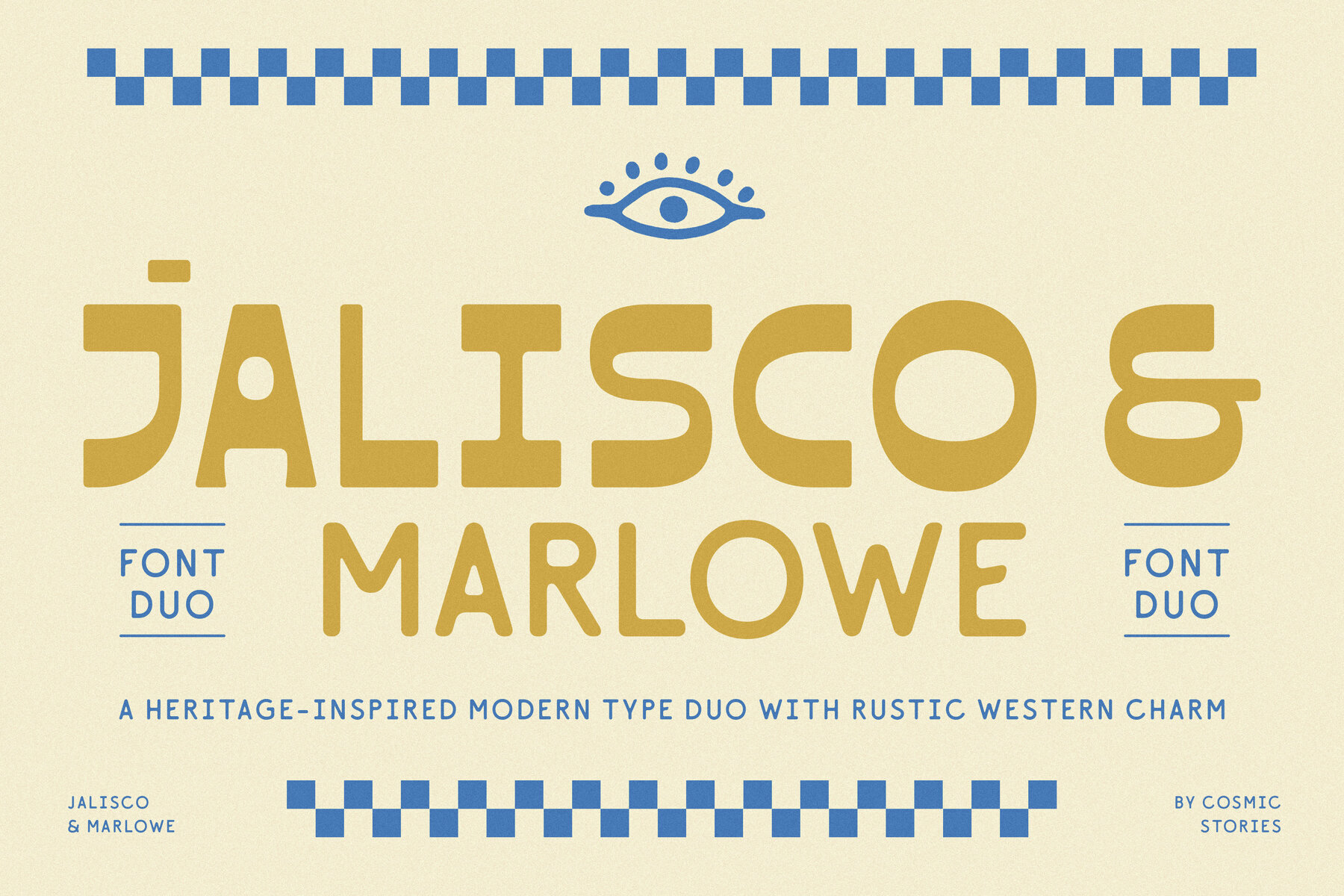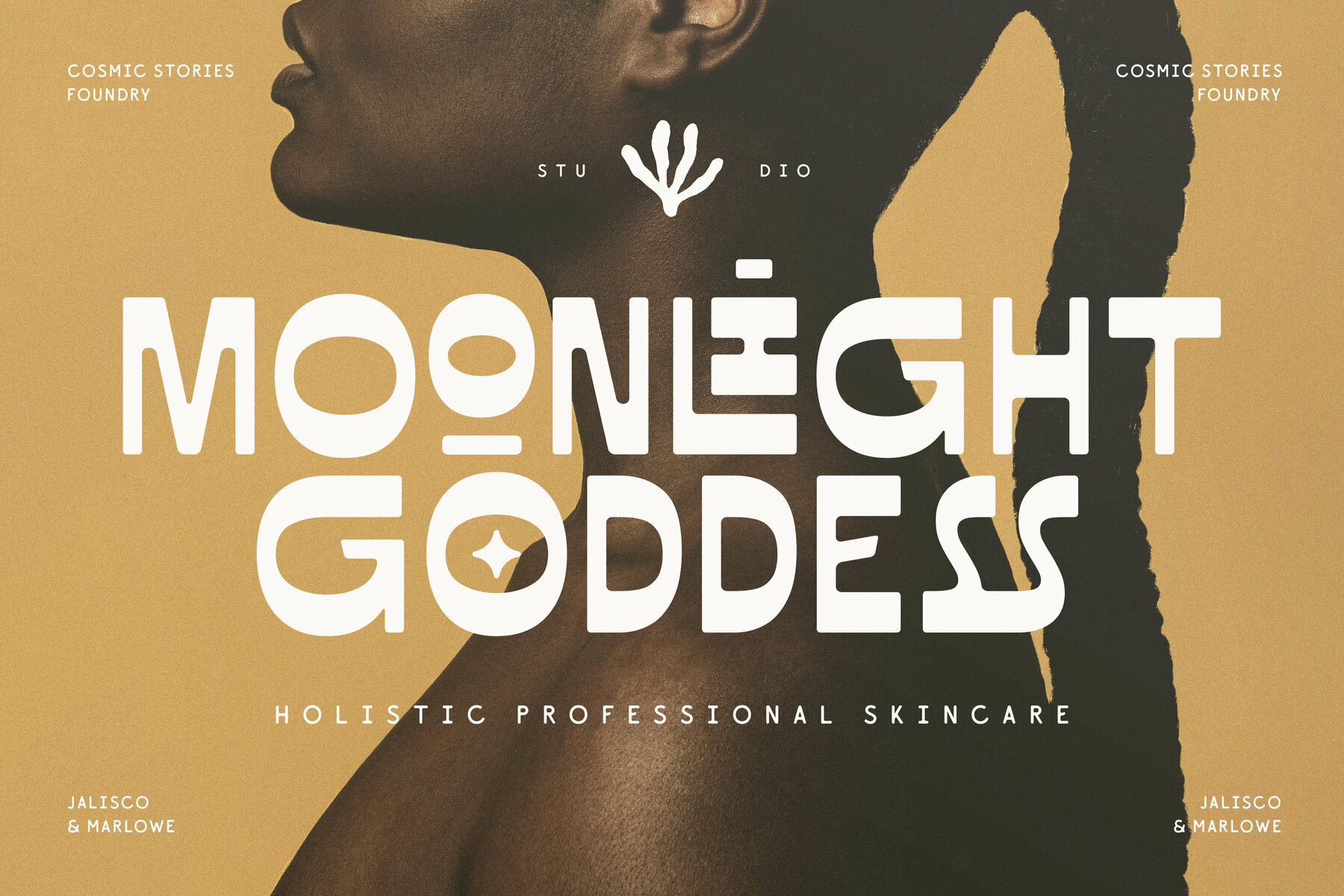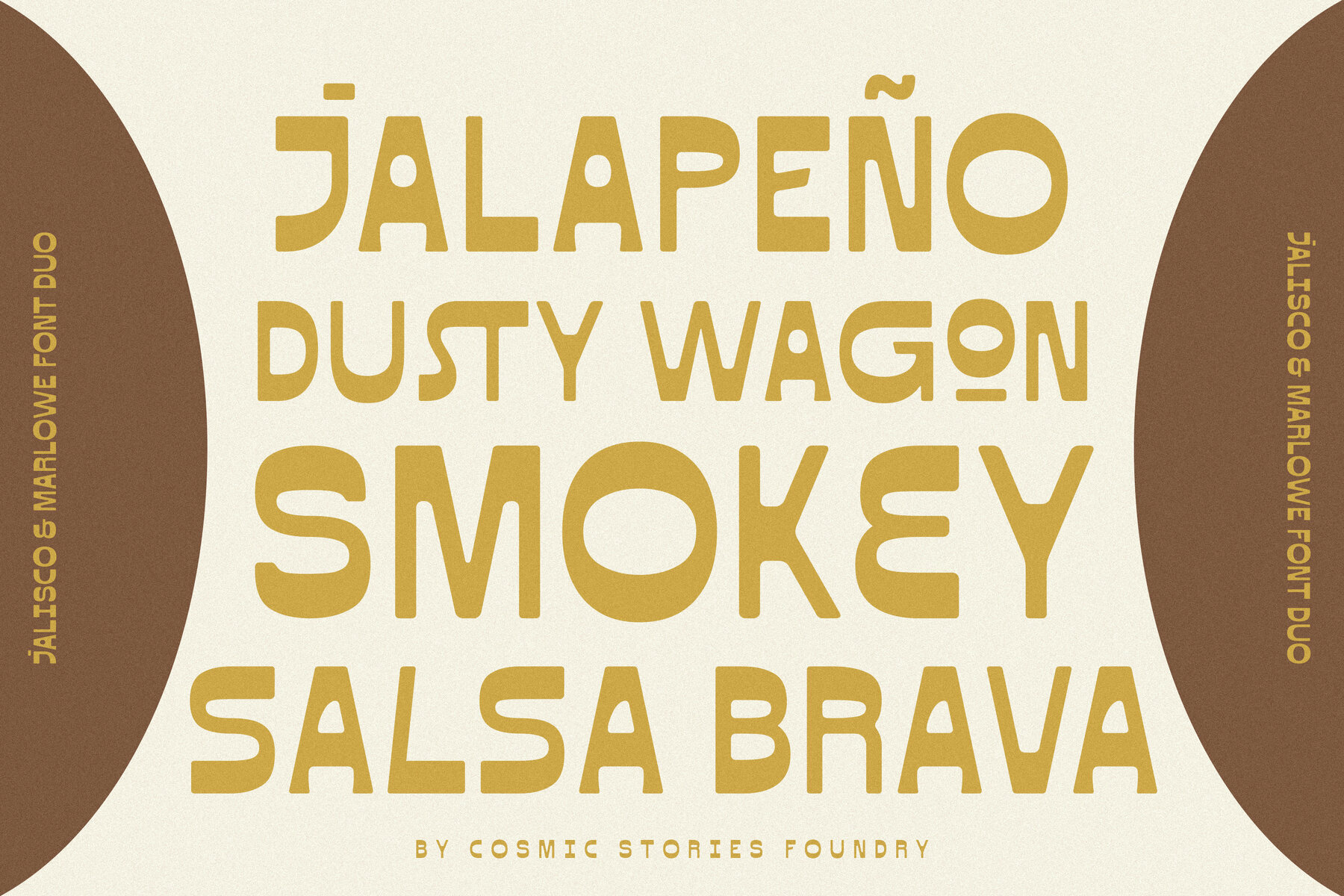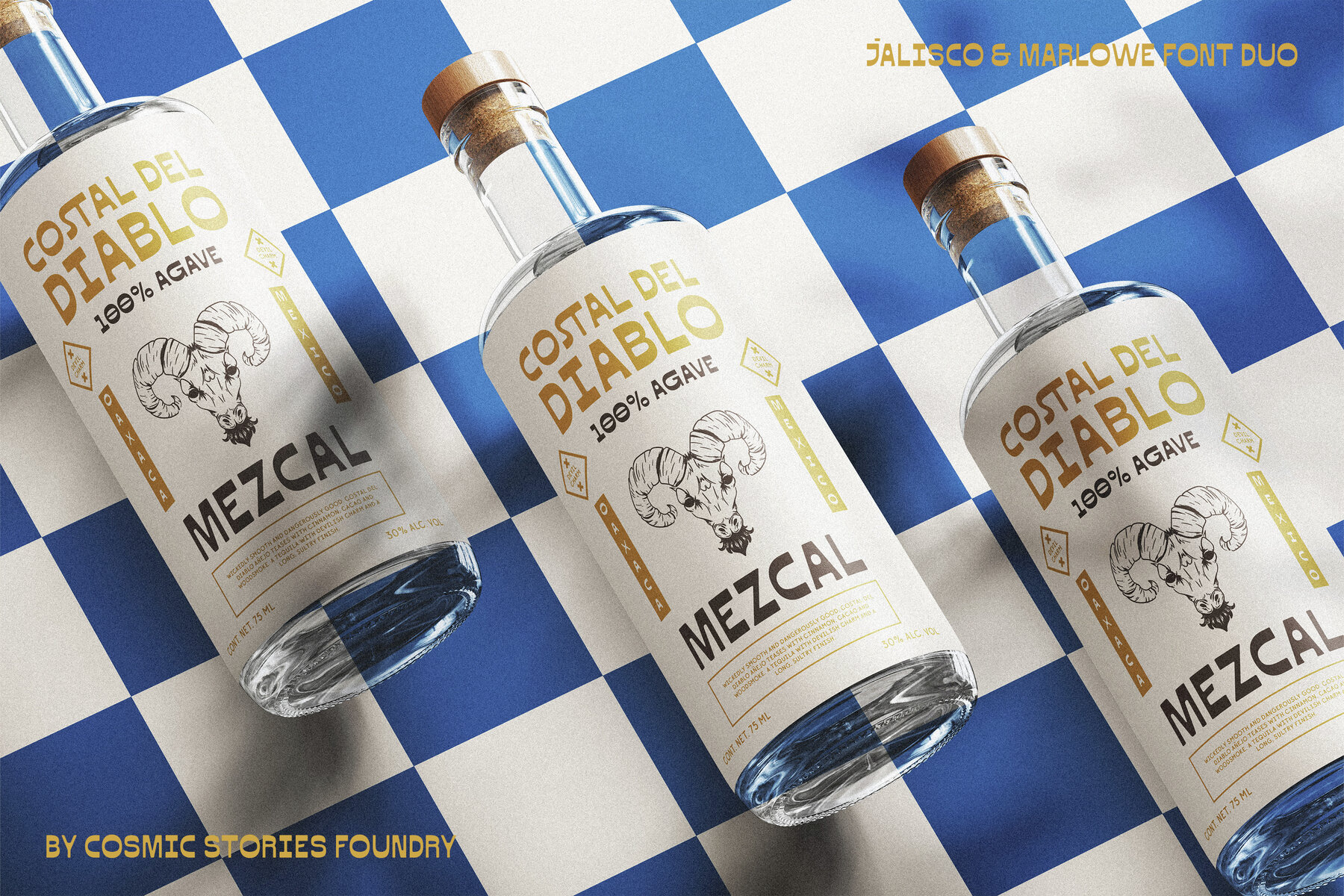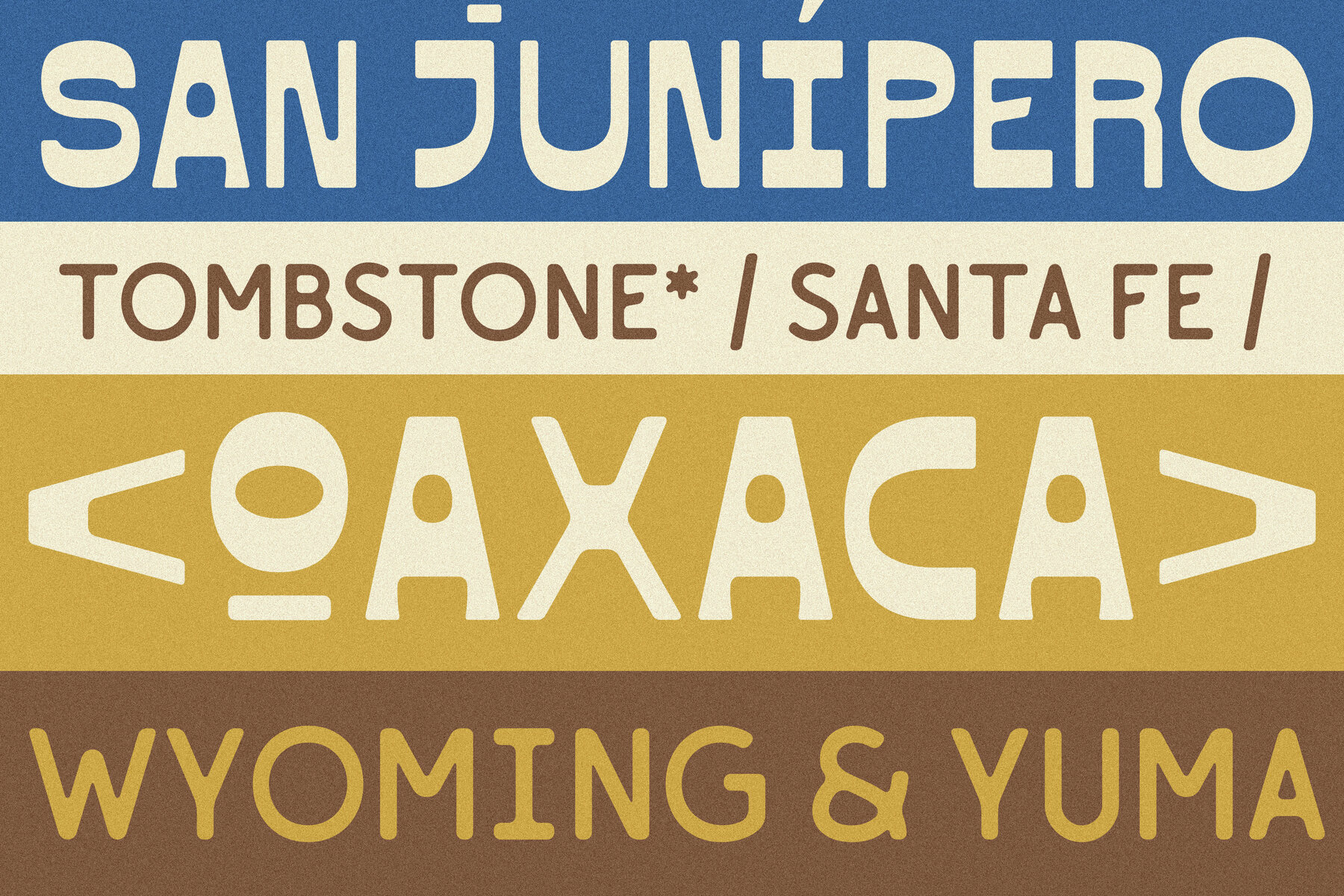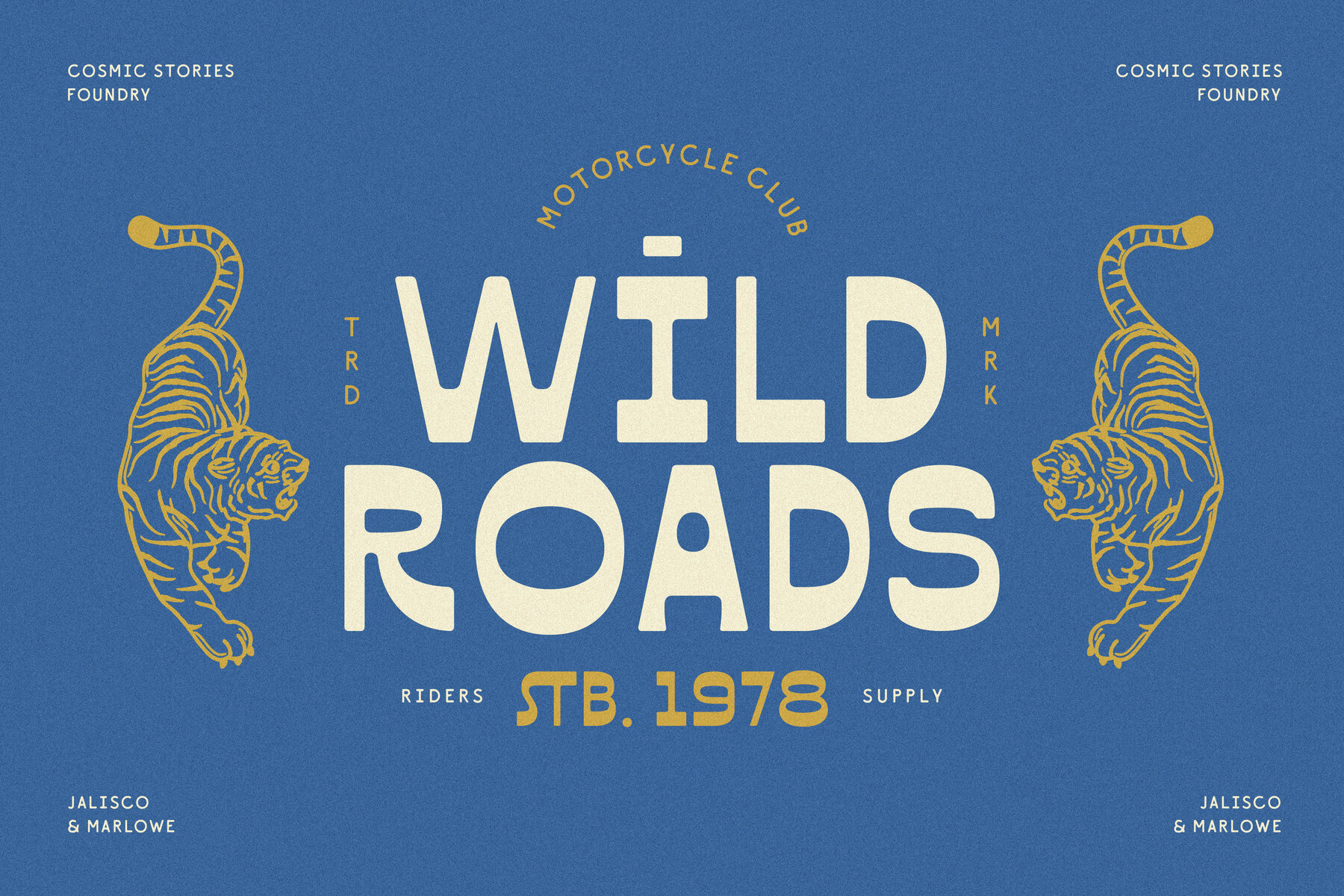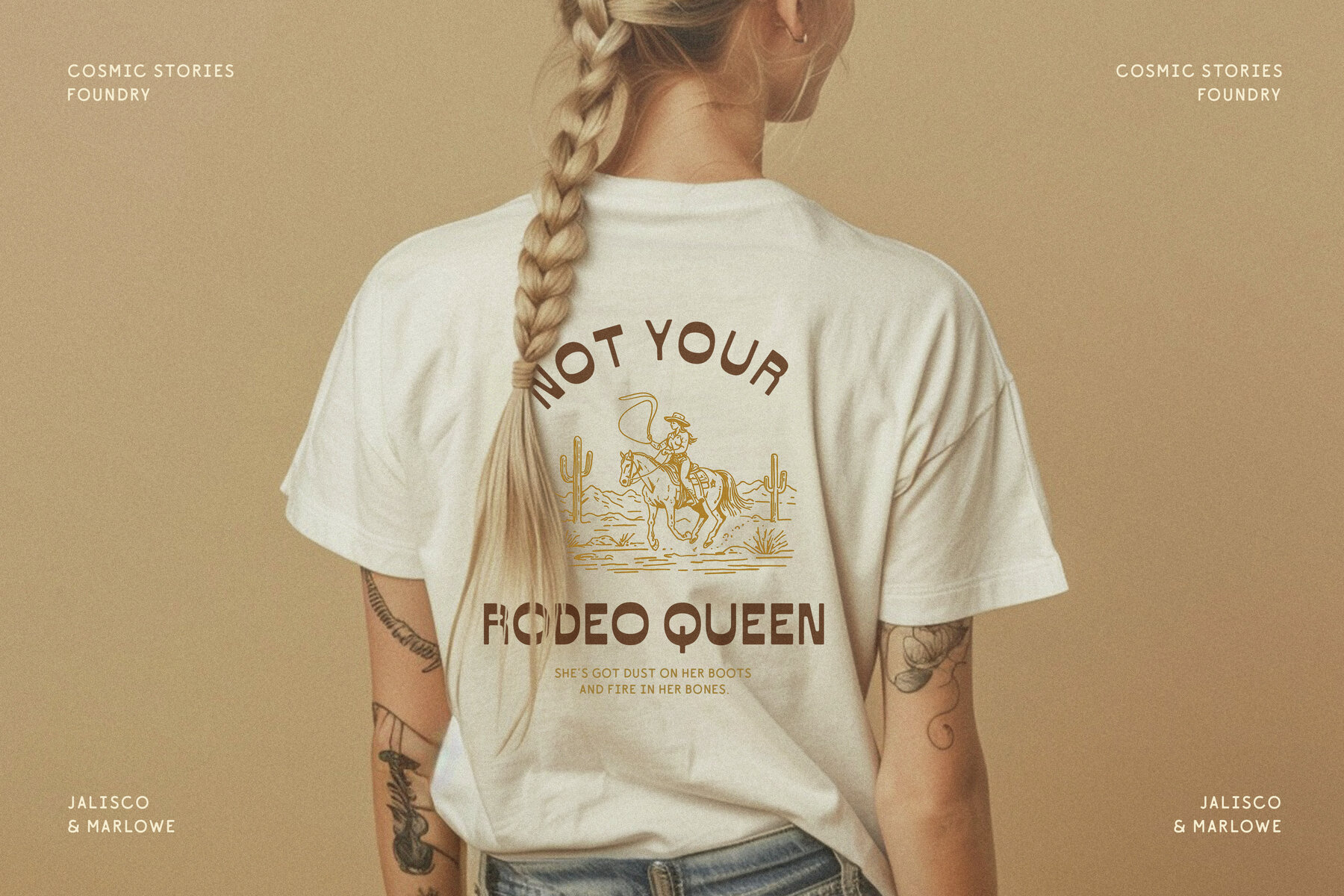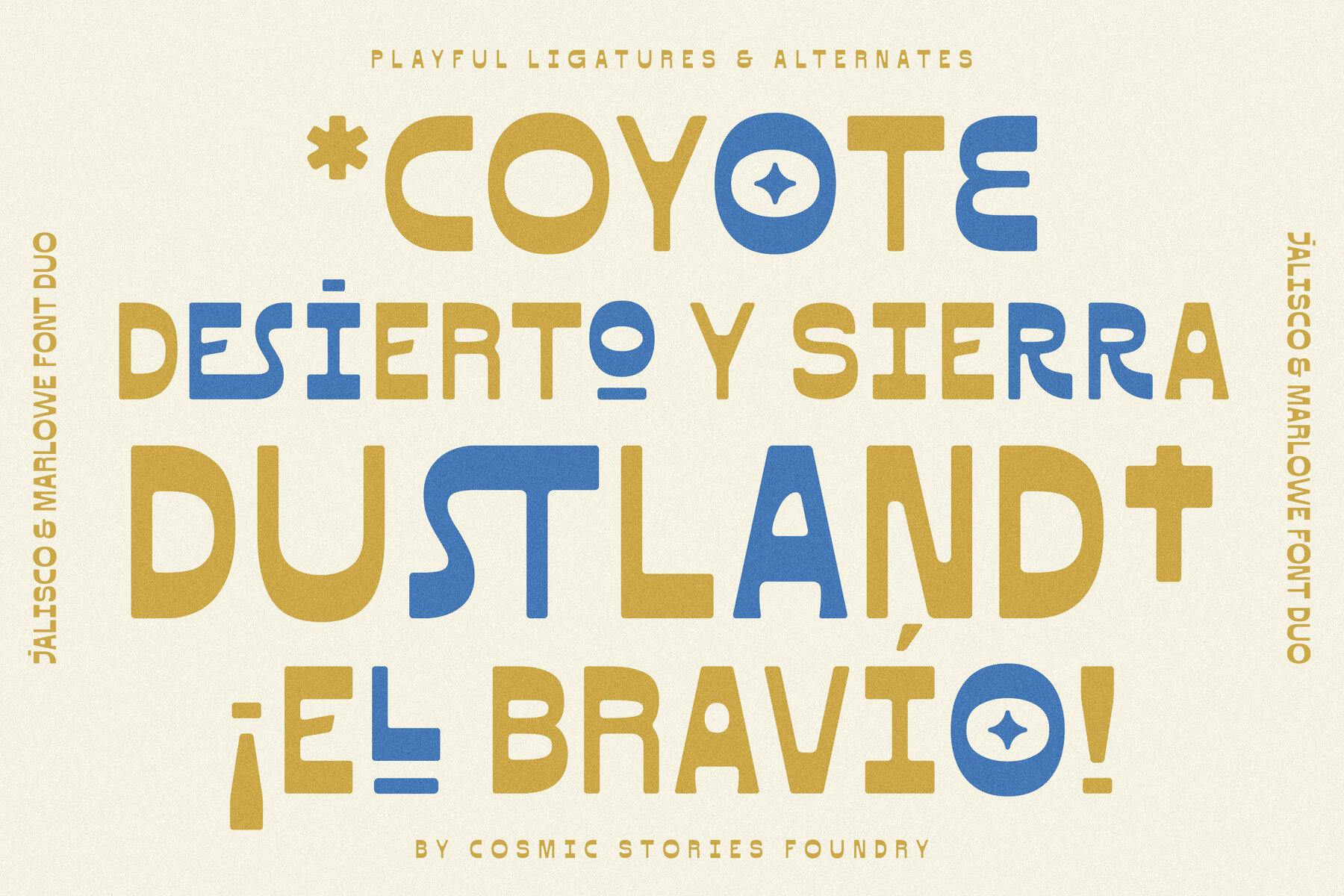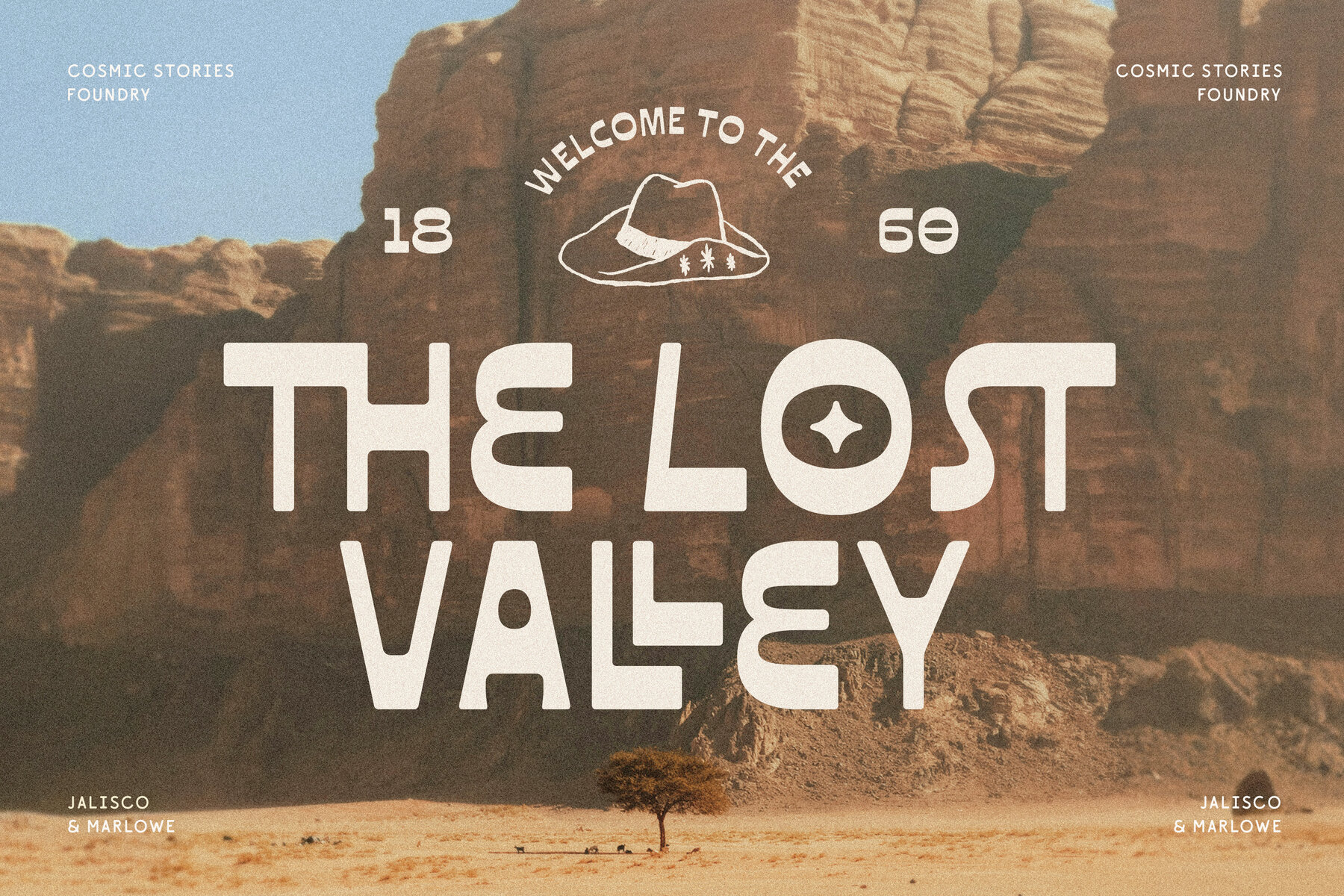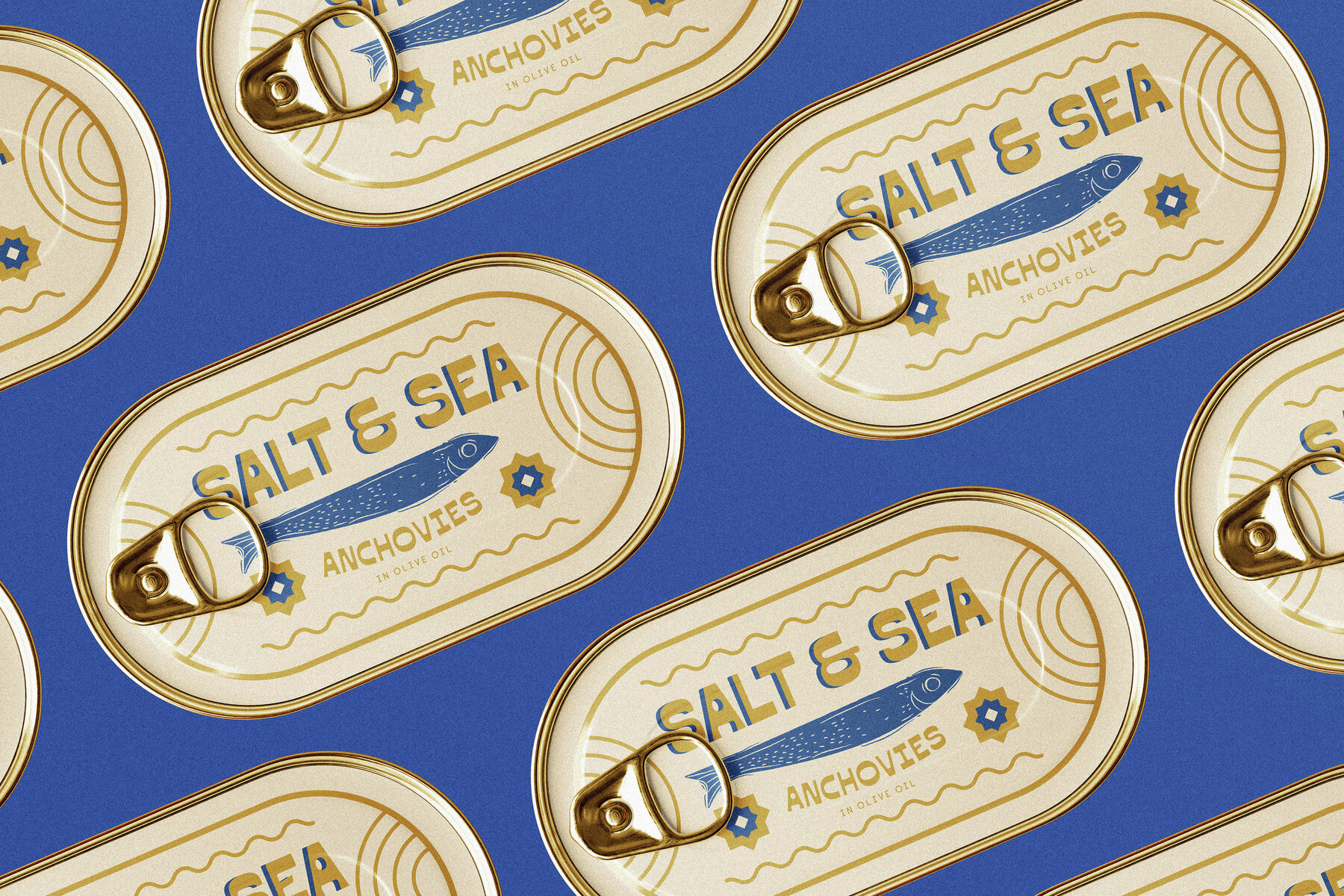
Jalisco and Marlowe Display Font Duo
Jalisco & Marlowe presents a type duo that interweaves rustic heritage with modern design. Its contrast and crafted character make it a versatile choice, blending a certain western nostalgia with contemporary simplicity.Jalisco & Marlowe: Rustic Meets Modern Typography
Type Duo Features